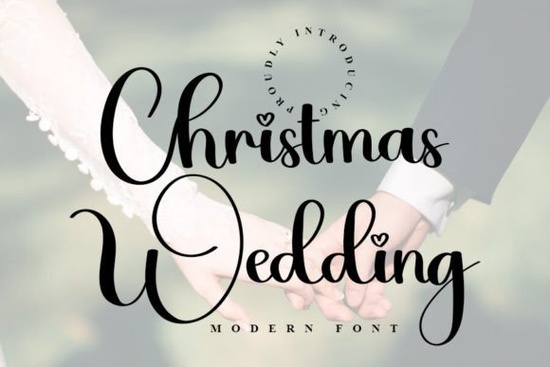
If you're planning a holiday-themed wedding or creating festive designs that blend romance with seasonal cheer, the Christmas Wedding Font offers a charming and versatile option. It’s clean, slightly whimsical, and works well across both digital and print projects whether you’re designing invitations, social media graphics, or custom merchandise. Unlike overly ornate holiday fonts, this one keeps things simple while still feeling special, making it practical for everyday creative use during the busy end-of-year season.
What makes this font work for both weddings and Christmas?
The Christmas Wedding Font strikes a balance between elegance and festivity. Its letterforms are smooth and readable, avoiding excessive swirls or snowflake embellishments that can clutter a layout. That simplicity means it pairs easily with photos, floral patterns, or minimalist designs ideal if you’re crafting wedding stationery with a winter wonderland theme or promoting a December elopement package.
You’ll find it especially useful for:
- Wedding invitations and save-the-date cards
- YouTube channel banners for seasonal content creators
- Print-on-demand mugs, tote bags, or T-shirts with romantic holiday messages
- ID badges or signage for winter weddings or holiday pop-up shops
- Craft projects like gift tags, ornaments, or scrapbook layouts
How does it compare to other script fonts on Creative Fabrica?
If you enjoy hand-lettered styles but want something more restrained than playful scripts, this font sits nicely between formal calligraphy and casual handwriting. For contrast, check out the bouncy energy of Milkshake or the nostalgic flair of Nostalgic Words. If your project leans more toward girly charm, the Barbie Cute font adds a retro sparkle, while Rainbow brings vibrant, layered dimension. And for a modern, airy script with delicate terminals, Helyna is worth exploring.
Each of these fonts serves a different mood but the Christmas Wedding Font stands out when you need warmth without overwhelming detail.
Tips for pairing it with other design elements
Because the font is relatively neutral in style, it plays well with a range of companions:
- Colors: Try deep reds, forest greens, ivory, or gold for a classic holiday feel. Soft blush or dusty blue works beautifully for winter weddings.
- Textures: Pair it with linen, watercolor washes, or subtle glitter overlays to add depth without competing with the lettering.
- Supporting fonts: Use a clean sans-serif (like Montserrat or Lato) for dates, addresses, or body text to keep your layout legible.
Avoid using too many decorative fonts in one design. Since the Christmas Wedding Font already carries personality, let it be the star.
Who should consider this font?
This font is particularly helpful for:
- Wedding planners offering December–February packages
- Etsy sellers creating printable holiday wedding kits
- Content creators producing seasonal YouTube intros or Instagram stories
- Crafters making personalized ornaments or gift labels
- Small studios designing branded holiday cards for clients
If your work blends personalization with timely themes, this font saves time while maintaining a polished look.
With thoughtful use, the Christmas Wedding Font can help you deliver warm, professional designs that feel both seasonal and sincere without leaning into cliché.